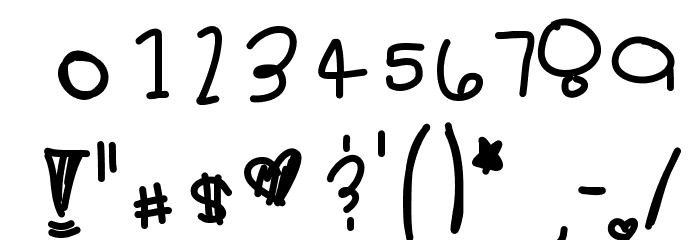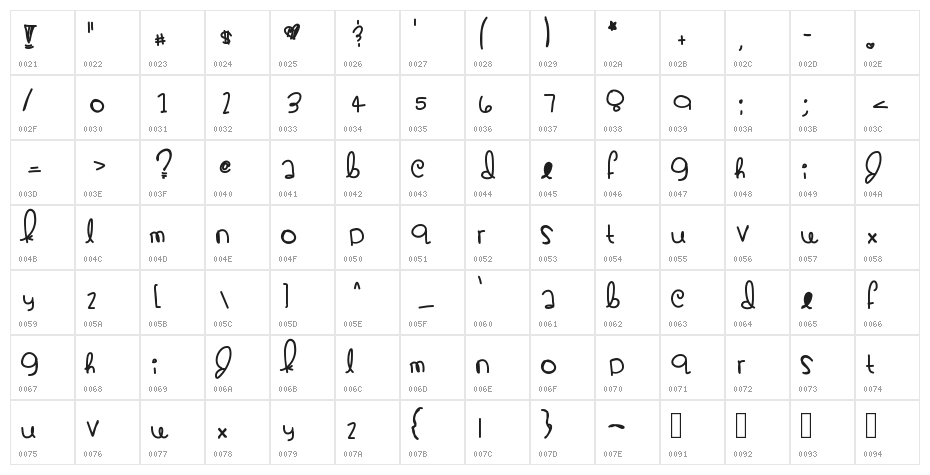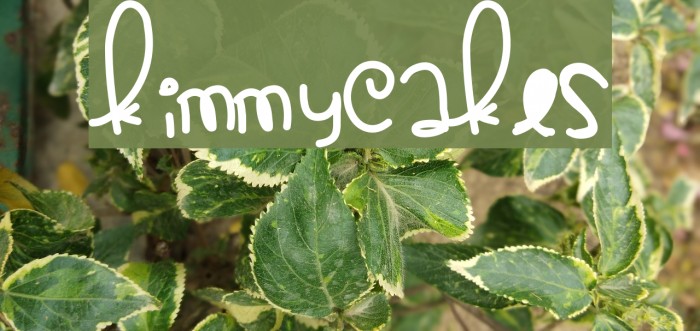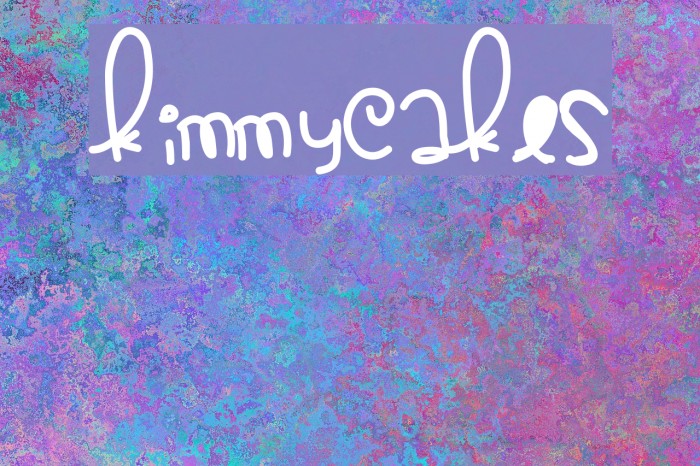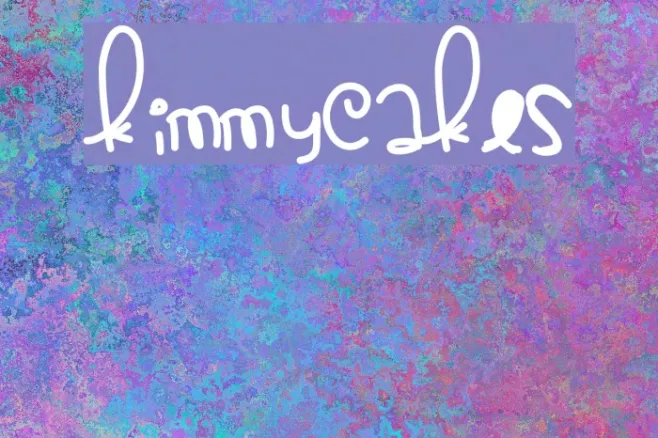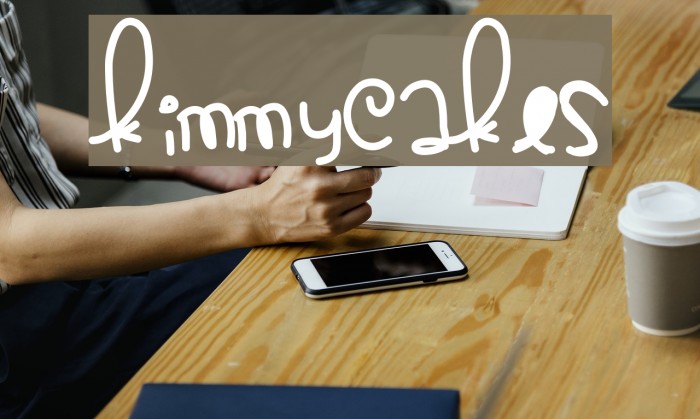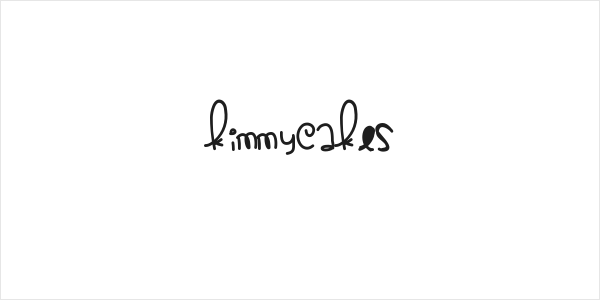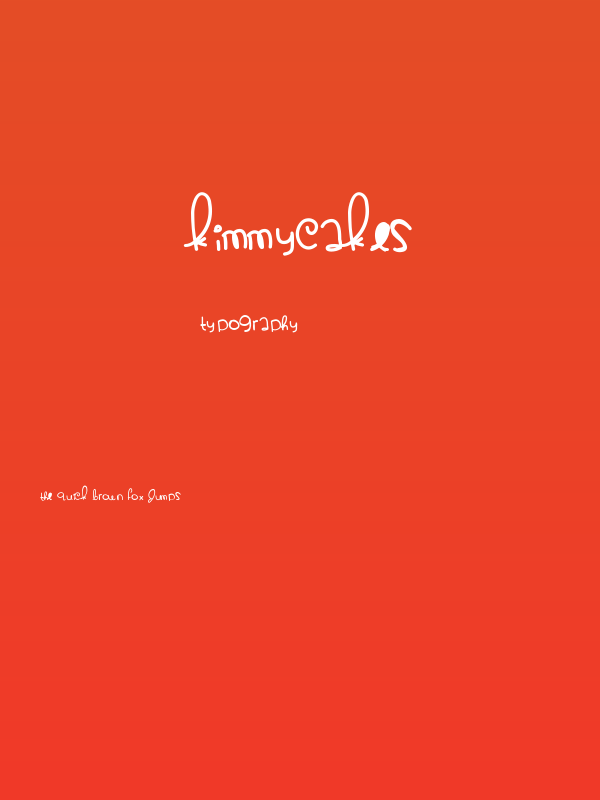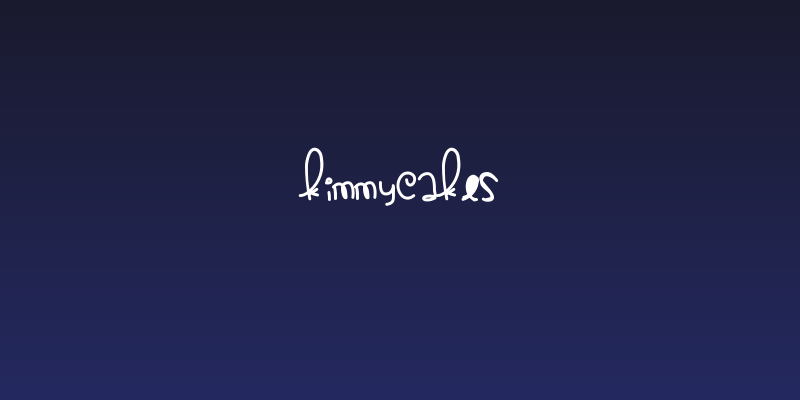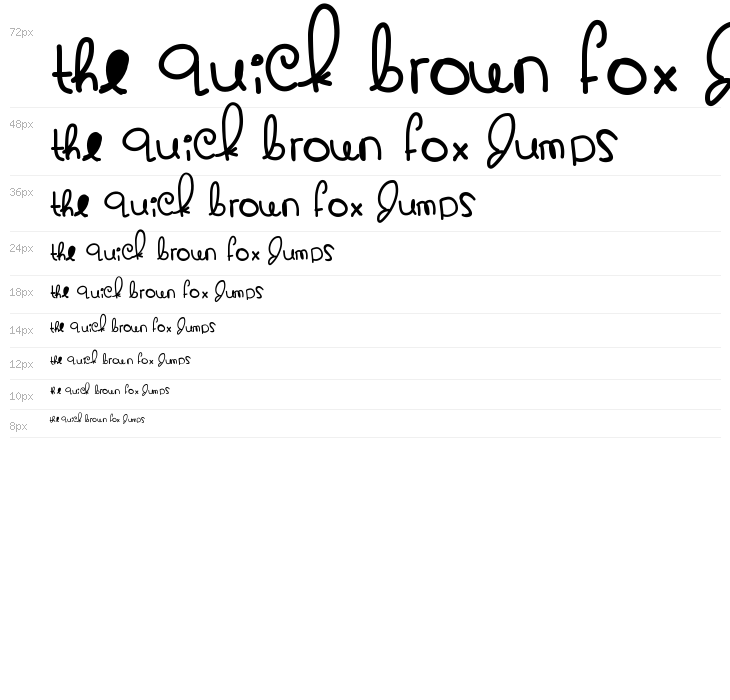
KimmyCakes Font
KimmyCakes Description
This playful and whimsical font features a handwritten style with rounded, flowing letters that convey a sense of fun and creativity. The characters are bold and slightly irregular, adding to the casual and friendly feel. The uppercase and lowercase letters maintain a consistent style, with a slight tilt and varying stroke thickness that gives the font a dynamic appearance. The numbers and special characters are equally expressive, with unique shapes that complement the overall design. This font is perfect for projects that require a personal touch or a youthful, energetic vibe.
| Proposed Projects | Ideal for children's books, greeting cards, playful branding, and creative social media graphics. |